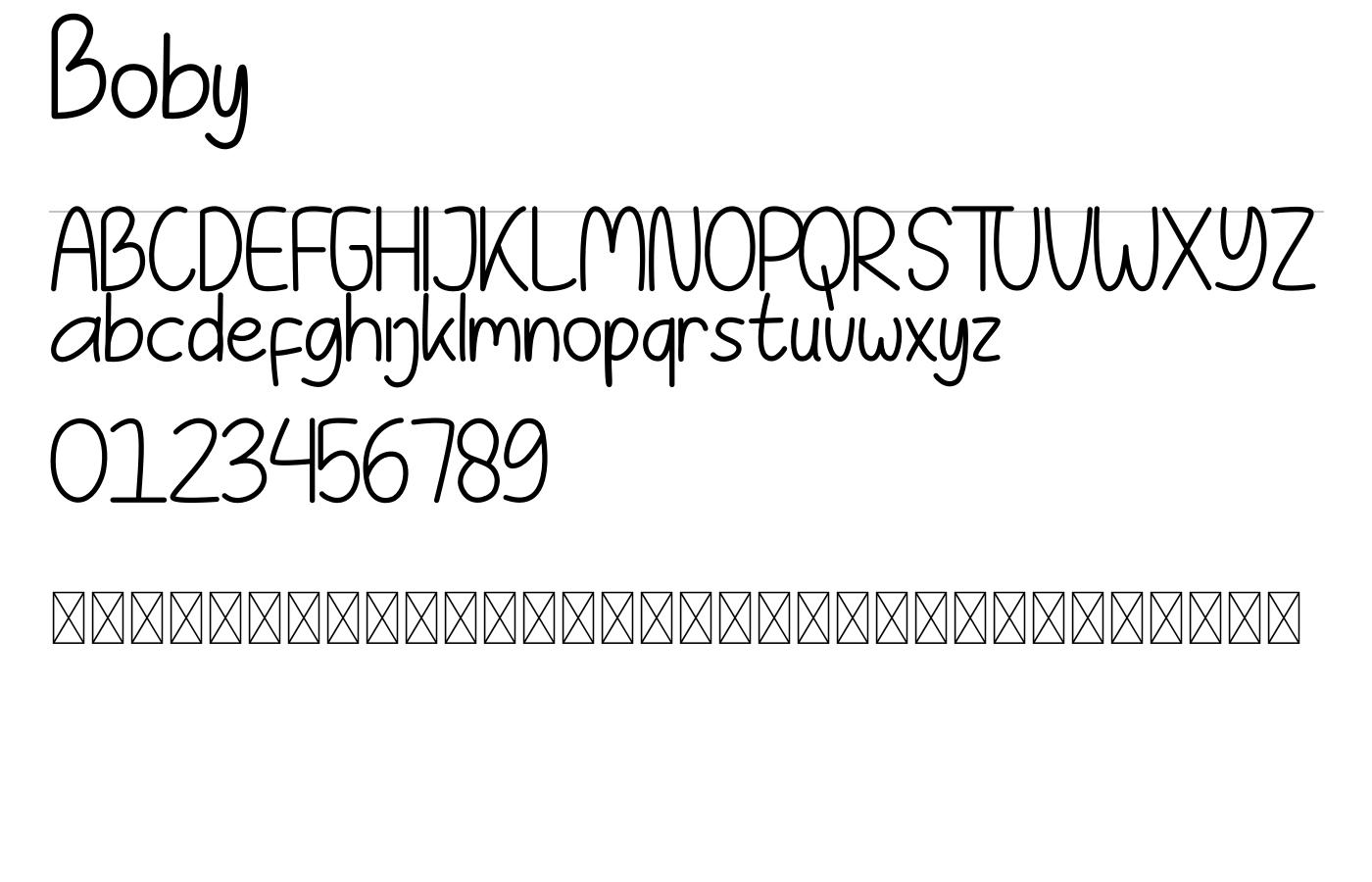
Boby is a playful and casual handwritten sans serif font characterized by its tall, narrow letterforms and whimsical, slightly irregular strokes. Its light weight and airy spacing give it a friendly, approachable feel, making it ideal for informal designs, children's projects, or creative branding that seeks a relaxed and personal touch. This font works well in logos, invitations, and headlines where a warm, handmade vibe is desired.
Boby Font
About Boby Font